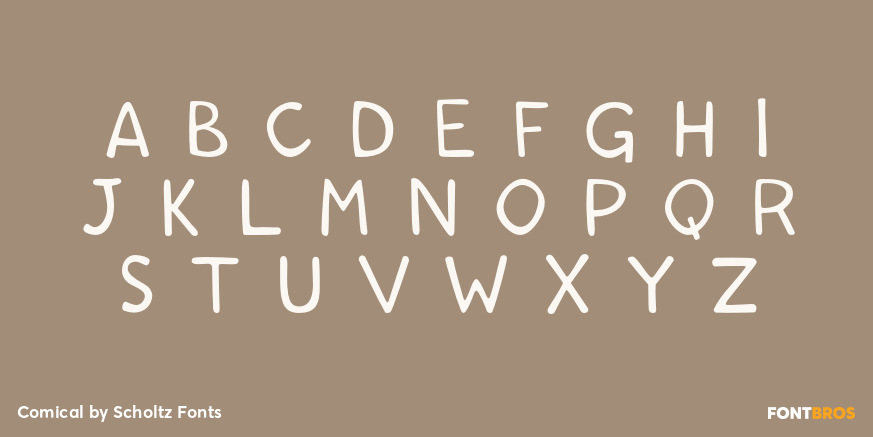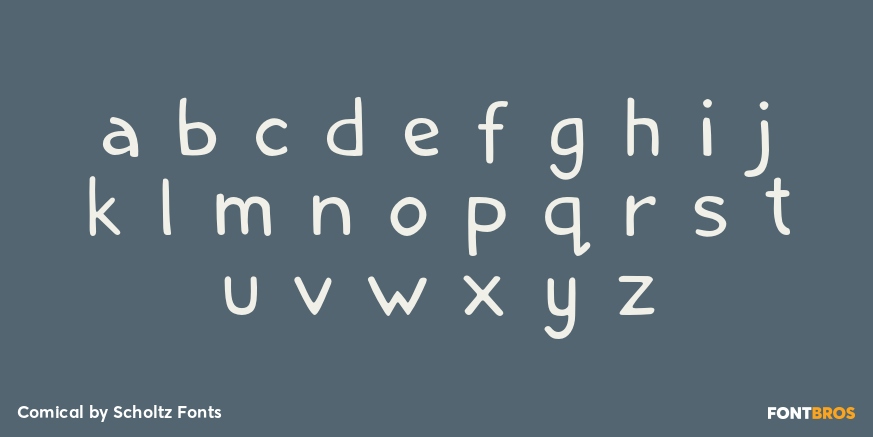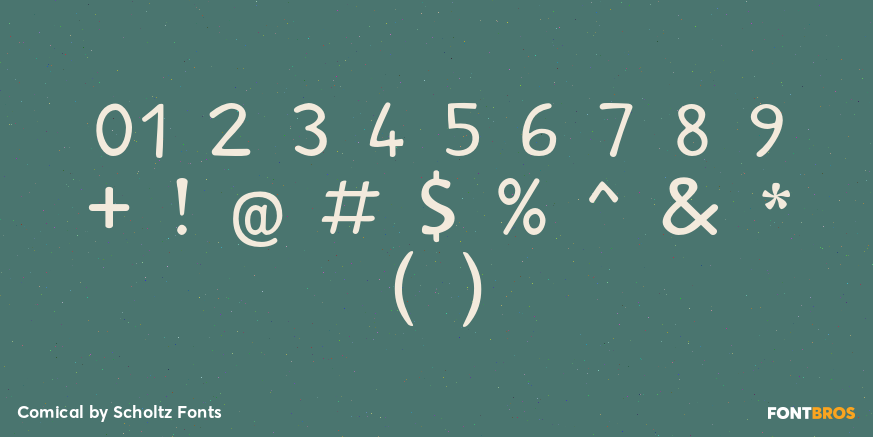
Comical
Font Family by Scholtz Fonts
Comical is an offshoot of Scholtz Fonts 2007 Comic SCF. The font has been reworked and updated, and is presented in three weights, Black, Regular & Lite.
Comical is legible and infinitely versatile:
• Black works wonderfully for display purposes, posters, headlines, branding, signage, ads and comic covers.
• Regular is great for body text or subheadings, for hang tags and branding, for greeting cards, magazines and comics.
• Lite works best as a body font in children's books and comics, and in combination with the bolder options.
• The family is vigorous, lively, casual and, above all, fun!